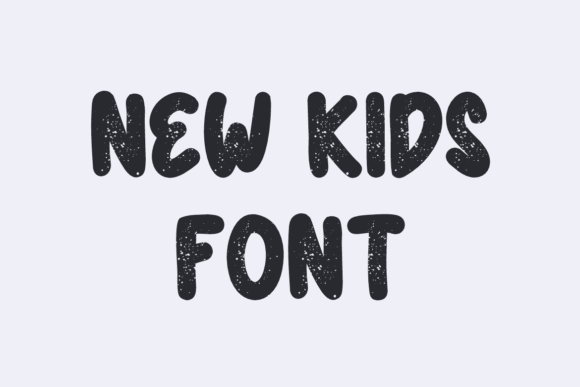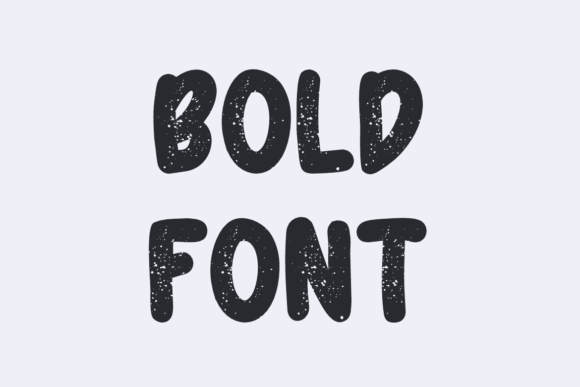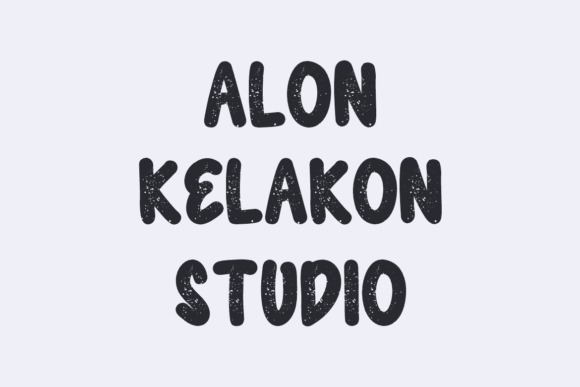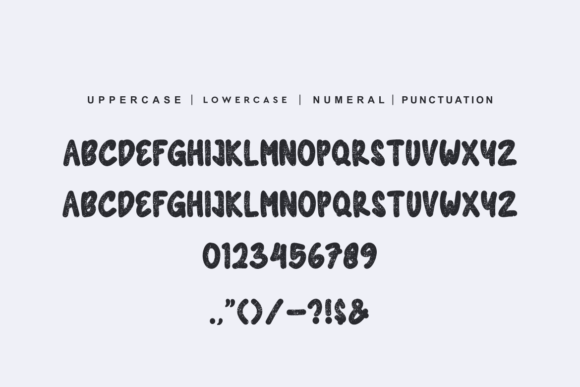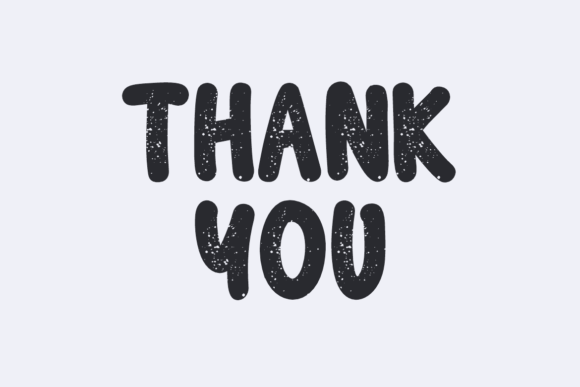
Discover the Charm of Dominan Battle Font: A Friendly Display Font for Every Occasion
In the world of typography, fonts play a crucial role in conveying the tone and personality of a message. Whether you’re a designer, crafter, or simply someone who loves to create, finding the right font can make all the difference. That’s where Dominan Battle Font comes in – a delightful, childish, and easy-to-read display font that’s sure to become your new favorite.
The Perfect Blend of Friendliness and Playfulness
Dominan Battle Font is designed to convey impeccable friendliness, making it perfect for a wide range of applications. Its childish charm and playful vibe make it an excellent choice for crafts, digital design, presentations, and even creating greeting cards. With this font, you can add a touch of whimsy and personality to your projects, making them stand out from the crowd.
What Makes Dominan Battle Font So Special?
- Easy to Read: The font’s clear and simple design ensures that it’s easy to read, even for younger audiences. This makes it perfect for crafts, educational materials, and children’s content.
- Versatile: Dominan Battle Font is suitable for a wide range of applications, from digital design to print materials. You can use it for headings, titles, and even body text.
- Friendliness: The font’s friendly and approachable vibe makes it perfect for creating content that resonates with your audience. Whether you’re designing a logo, creating a poster, or making a greeting card, Dominan Battle Font is sure to convey your message in a warm and inviting way.
Use Cases for Dominan Battle Font
So, how can you use Dominan Battle Font in your projects? Here are some ideas to get you started:
- Crafts: Use Dominan Battle Font to add a personal touch to your craft projects, such as scrapbooking, card making, and DIY gifts.
- Digital Design: Add a playful touch to your digital designs, such as social media graphics, blog posts, and website headers.
- Presentations: Make your presentations more engaging and fun with Dominan Battle Font. It’s perfect for titles, headings, and bullet points.
- Greeting Cards: Create personalized and charming greeting cards for special occasions, such as birthdays, holidays, and weddings.
Why Designers and Crafters Love Dominan Battle Font
Dominan Battle Font has quickly become a favorite among designers and crafters, and for good reason. Here are some reasons why:
- Unique Personality: The font’s unique personality and charm make it stand out from more traditional fonts.
- High-Quality: The font is designed with high-quality and clarity in mind, ensuring that it looks great in any application.
In conclusion, Dominan Battle Font is a versatile and charming display font that’s perfect for designers, crafters, and anyone who loves to create. Its unique blend of friendliness and playfulness makes it suitable for a wide range of applications, from crafts to digital design. With its easy-to-read design, versatility, and high-quality aesthetic, Dominan Battle Font is sure to become your new go-to font for all your creative projects.